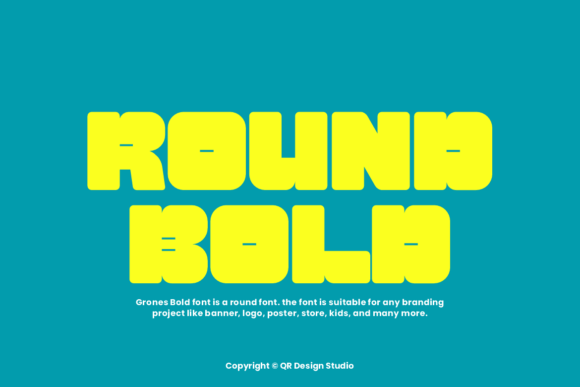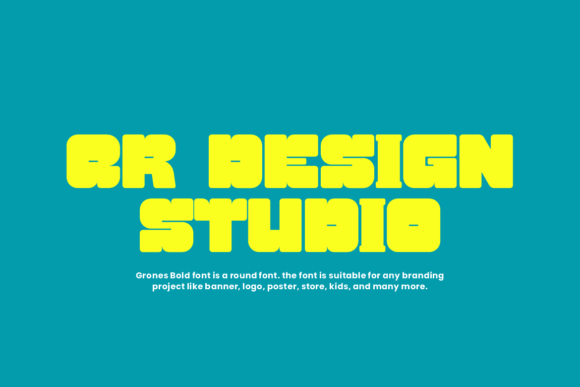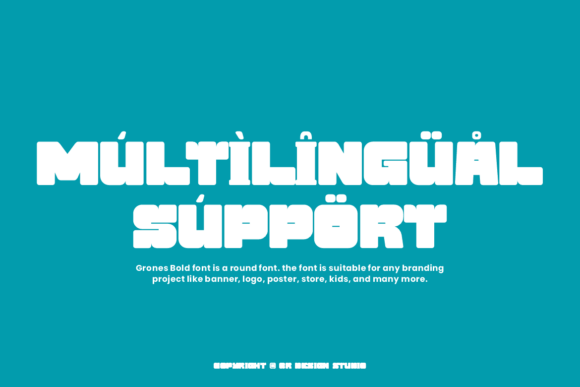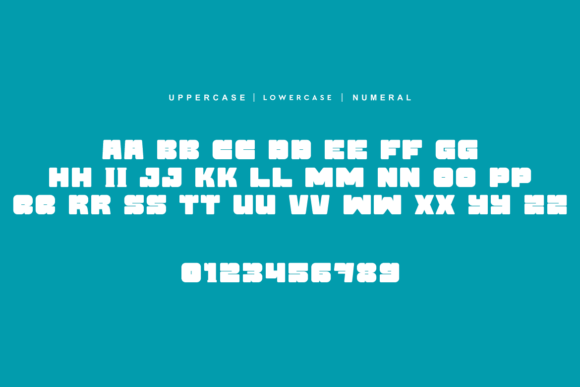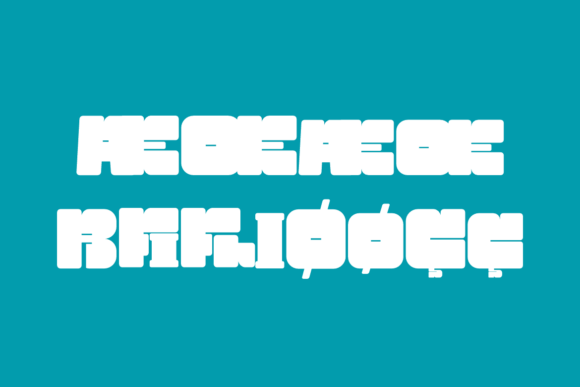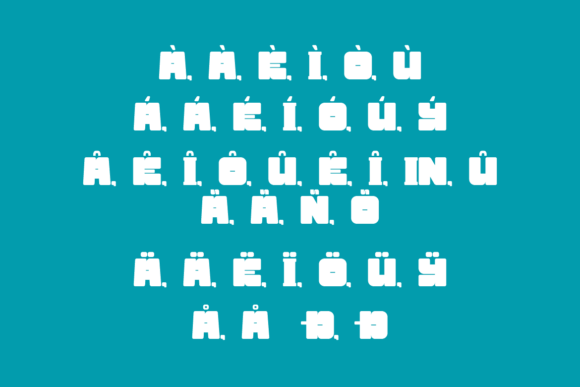
Grones Bold: A Modern & Round Display Font
In the world of typography, a good font can make all the difference in conveying a message effectively. For designers and crafters looking for a bold and playful font to make a strong visual statement, Grones Bold is an excellent choice. This modern and round display font combines a bold presence with a friendly aesthetic, making it perfect for a wide range of design projects.
The Distinctive Features of Grones Bold
Grones Bold is characterized by its chunky, geometric letterforms and perfectly rounded edges, giving it a distinctive and modern feel. The font’s bold presence is balanced by its playful and friendly aesthetic, making it both assertive and approachable. The clear and powerful lines of Grones Bold ensure that your message is not only seen but also remembered.
One of the key benefits of Grones Bold is its versatility in design. This font is suitable for a wide range of projects, including bold logos, eye-catching banners, posters, and designs for products and stores. Its modern and youthful feel makes it particularly well-suited for brands targeting a younger audience.
Purpose-Built for Impact
Grones Bold is purpose-built for impact. Its bold and chunky letterforms ensure that your message stands out from the crowd, making it perfect for headlines and titles. Whether you’re looking to create a bold logo, an eye-catching banner, or a striking poster, Grones Bold has got you covered.
Grones Bold is PUA encoded, allowing effortless access to all glyphs, swashes, and alternate characters. This makes it easy for designers to experiment with different design options and create unique and eye-catching designs.
Perfect for Modern Brands
In today’s fast-paced digital landscape, brands need to stand out from the crowd to succeed. Grones Bold is the perfect font for modern brands looking to make a bold statement. Its modern and youthful feel makes it particularly well-suited for brands in the tech, fashion, and lifestyle industries.
Key Features of Grones Bold
• Bold and chunky letterforms: Grones Bold features bold and chunky letterforms that ensure your message stands out from the crowd.
• Perfectly rounded edges: The font’s perfectly rounded edges give it a distinctive and modern feel.
• PUA encoded: Grones Bold is PUA encoded, allowing effortless access to all glyphs, swashes, and alternate characters.
• Versatile design: Grones Bold is suitable for a wide range of design projects, including bold logos, eye-catching banners, posters, and designs for products and stores.
Tips for Using Grones Bold
Here are some tips for using Grones Bold in your design projects:
• Use it for headlines and titles: Grones Bold is perfect for headlines and titles, where you want to make a bold statement.
• Experiment with different design options: Take advantage of Grones Bold’s PUA encoding to experiment with different design options and create unique and eye-catching designs.
• Pair it with other fonts: Grones Bold can be paired with other fonts to create a unique and eye-catching design.
In conclusion, Grones Bold is a modern and round display font that is perfect for designers and crafters looking for a bold and playful font to make a strong visual statement. Its distinctive features, versatility in design, and PUA encoding make it a valuable tool for any design project. Whether you’re looking to create a bold logo, an eye-catching banner, or a striking poster, Grones Bold is the perfect choice.